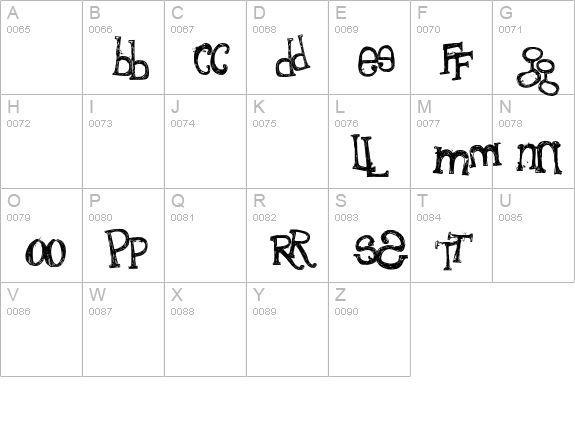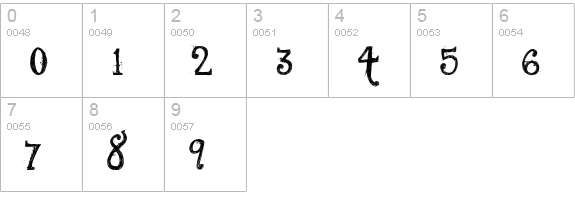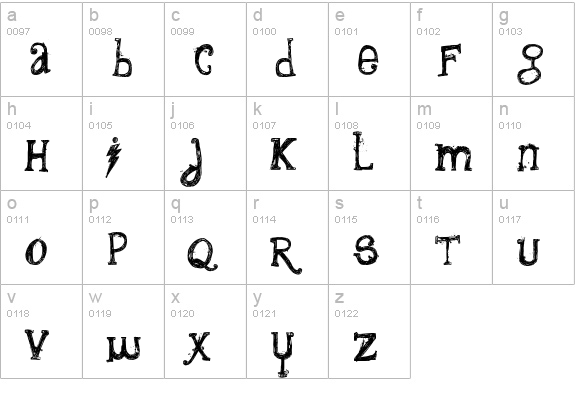
the quiet scream Font Details
Introducing the mesmerizing Quiet Scream font - a unique and captivating typeface that effortlessly blends elegance with creativity. Designed to make a statement while maintaining a subtle charm, Quiet Scream is perfect for projects that require a touch of sophistication and originality. This font exudes a quiet intensity that is sure to leave a lasting impression on any audience. The graceful curves and sharp angles of Quiet Scream create a harmonious balance that makes it ideal for a wide range of design projects, from branding to editorial layouts. Its versatility allows it to be used for both headlines and body text, ensuring a cohesive and polished look throughout your work. Best of all, Quiet Scream is available for free download at FontsMarket.com, making it easily accessible to all designers looking to add a touch of flair to their projects. Don't miss out on the opportunity to elevate your designs with this stunning font - download Quiet Scream today and let your creativity shine!